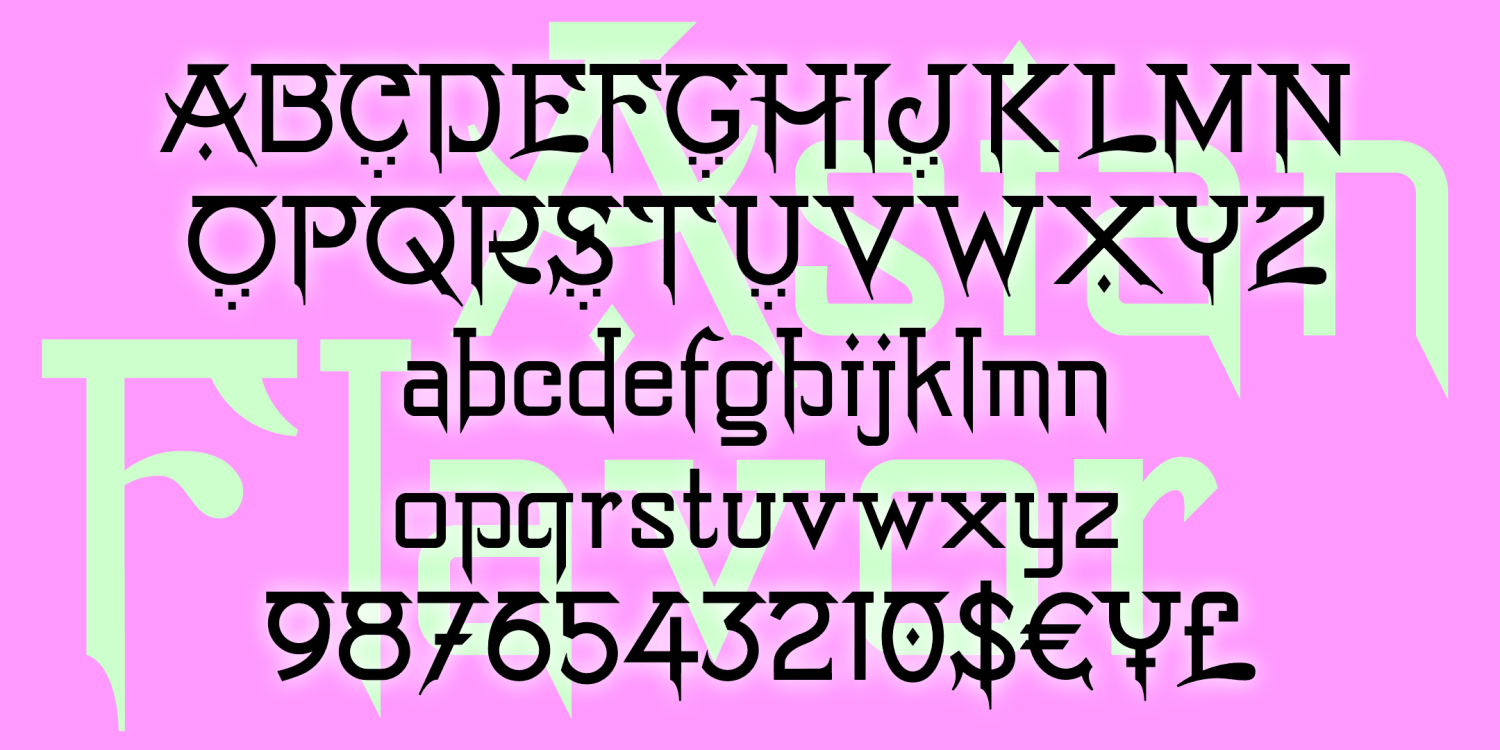
Asian Flavor
About Asian Flavor
Asian Flavor is a pan-Asian pastiche. Borrowing from multiple Asian scripts?dots from the Middle East, bars from South Asia, strokes from the Far East'this font attempts to suggest Asian languages while still writing in the Latin alphabet. About as…